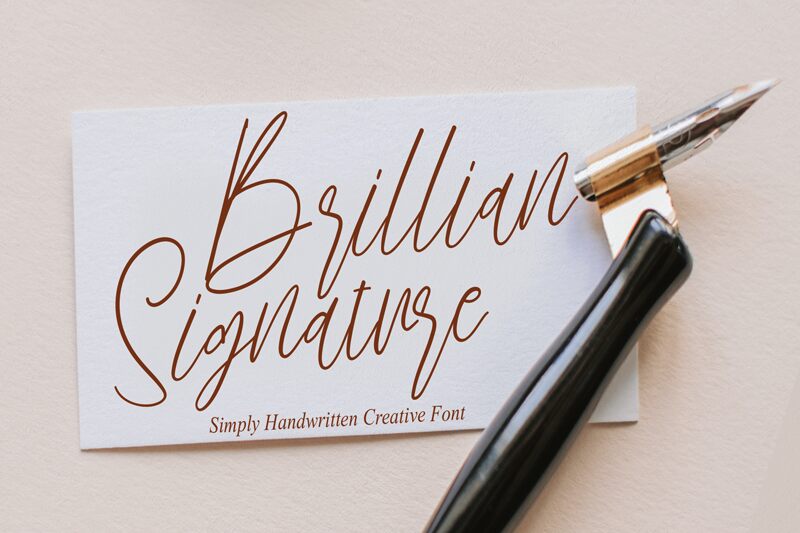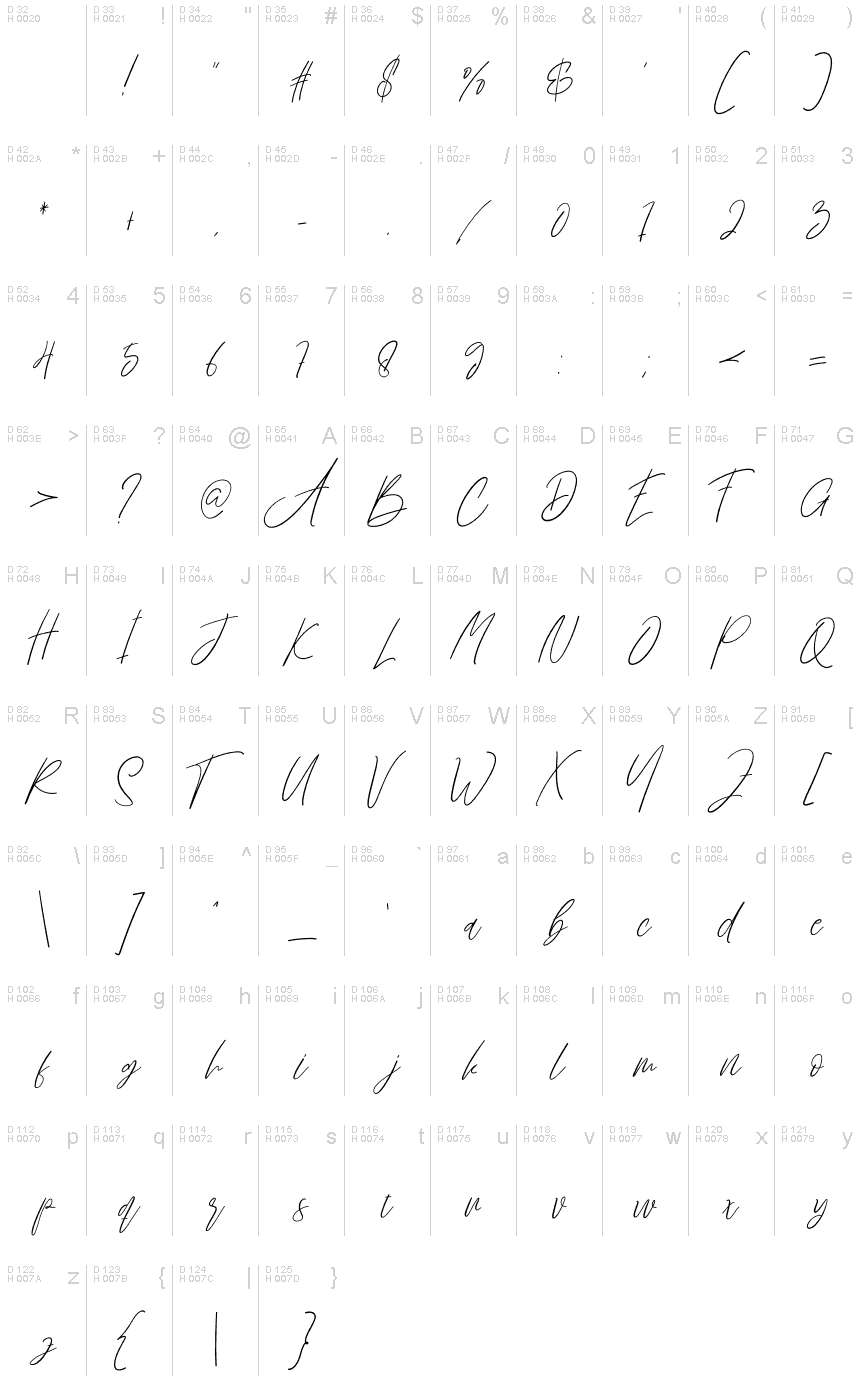
Brillian Signature
Brillian Signature, crafted by scratchones, is a stunning handwritten signature font. With its light weight, this font exudes elegance and sophistication. Perfect for wedding invitations, luxury branding, and fashion editorials, Brillian Signature adds a touch of refinement to any project. Its fluid lines capture the essence of contemporary calligraphy while maintaining legibility, making it ideal for personalized stationery or logo designs. Enhance your creative endeavors with this typeface that effortlessly blends modernity with timeless beauty. Let Brillian Signature elevate your designs and leave an indelible impression on your audience.
the latest style letters are perfect for wall displays, wedding invitations, social media post logos, advertisements, product packaging, product designs, labels, photography, watermarks, invitations, stationery, and any project that requires taste handwriting.